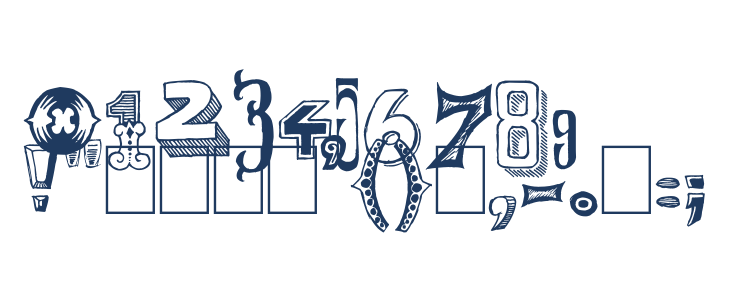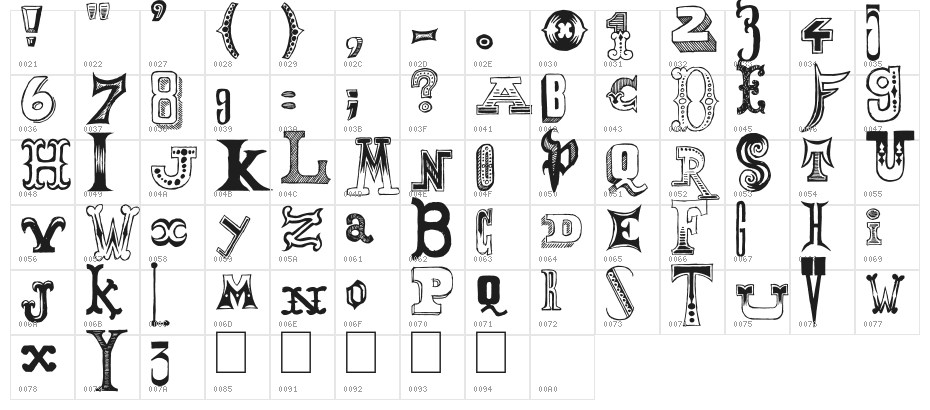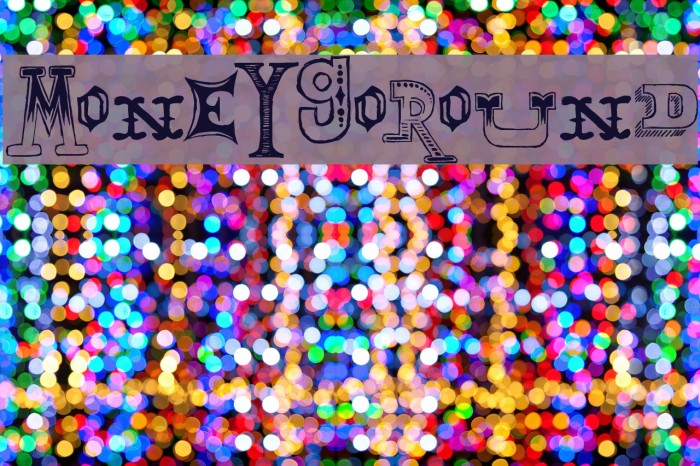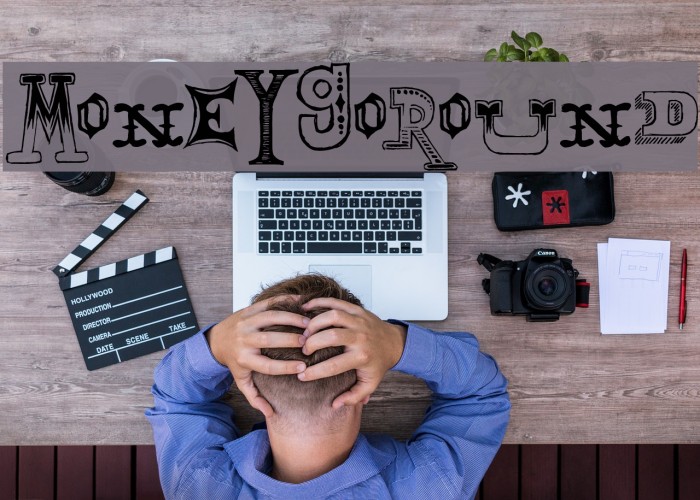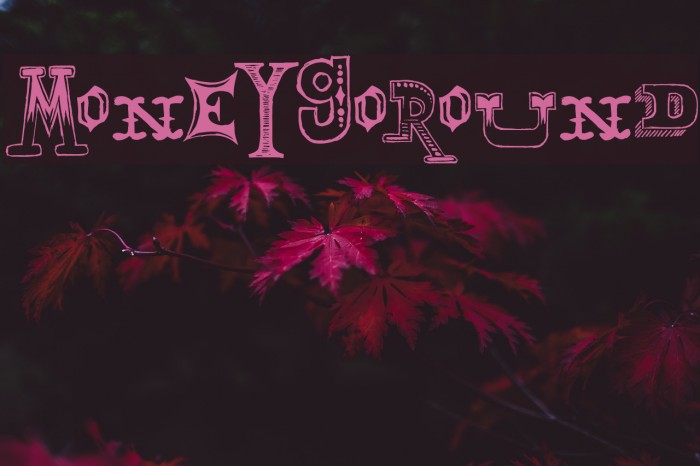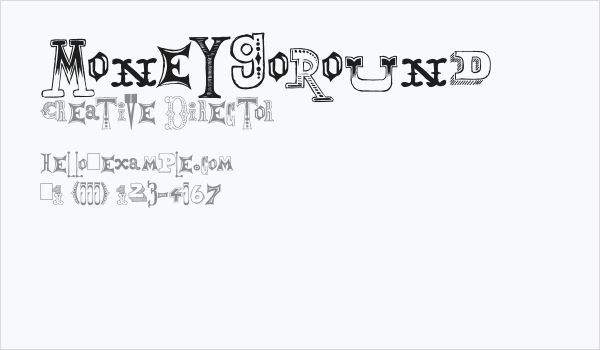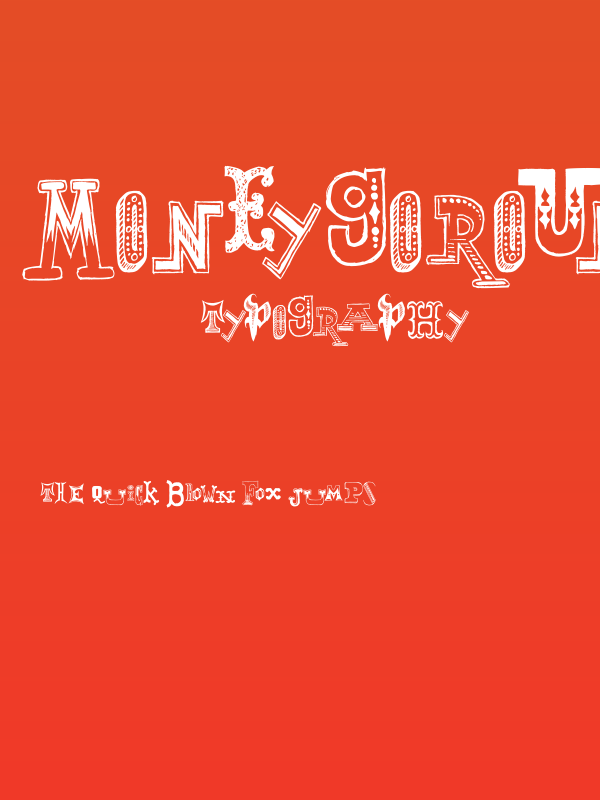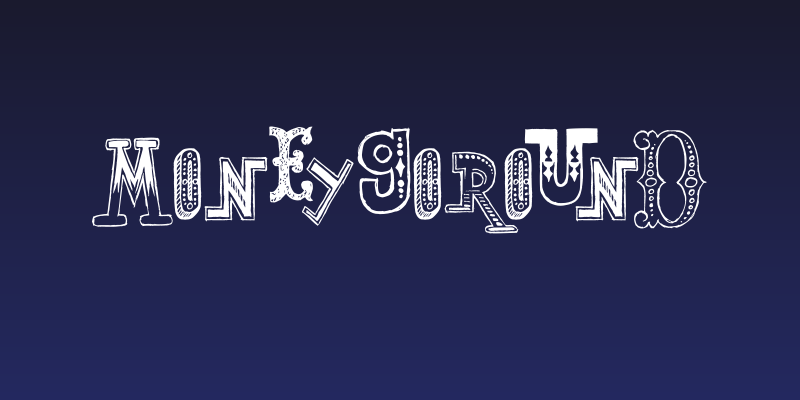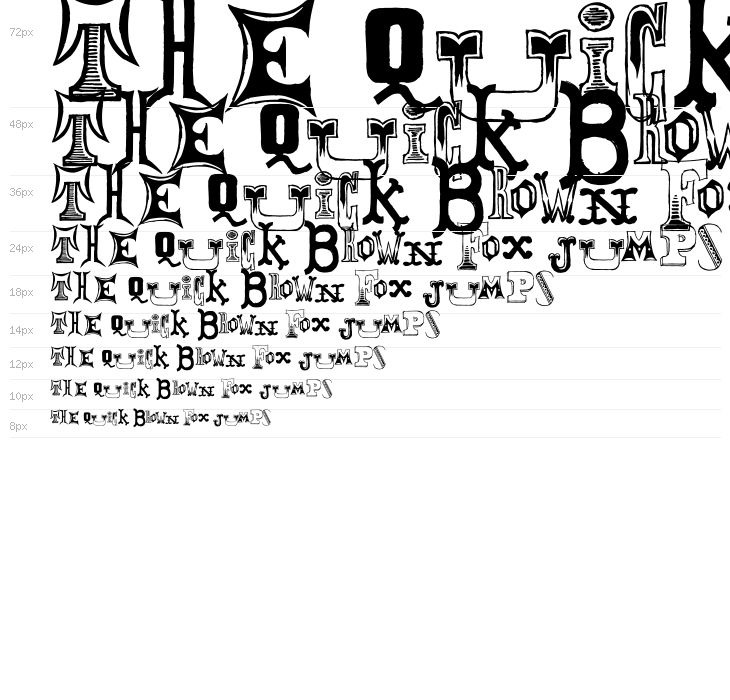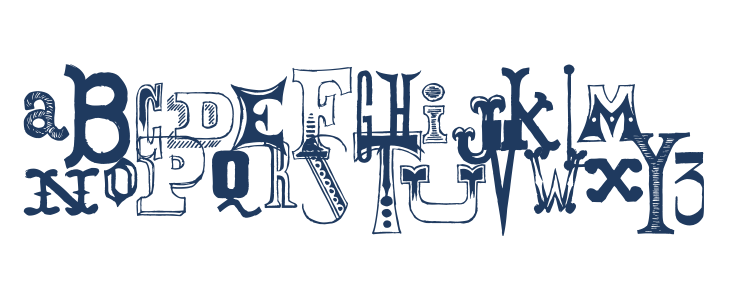
MoneyGoRound Font
MoneyGoRound Description
This font is a highly decorative and eclectic collection of characters, each with its own unique flair and artistic embellishments. The uppercase and lowercase letters exhibit a variety of styles, from bold and blocky to ornate and whimsical, often incorporating elements like dots, stripes, and intricate patterns. The numbers continue this theme, with each digit presenting a distinct and playful design. The special characters are equally creative, featuring imaginative and artistic interpretations. This font is perfect for projects that require a bold and eye-catching display, offering a sense of fun and creativity.
| Proposed Projects | Ideal for posters, album covers, event invitations, and any project needing a bold, artistic touch. |